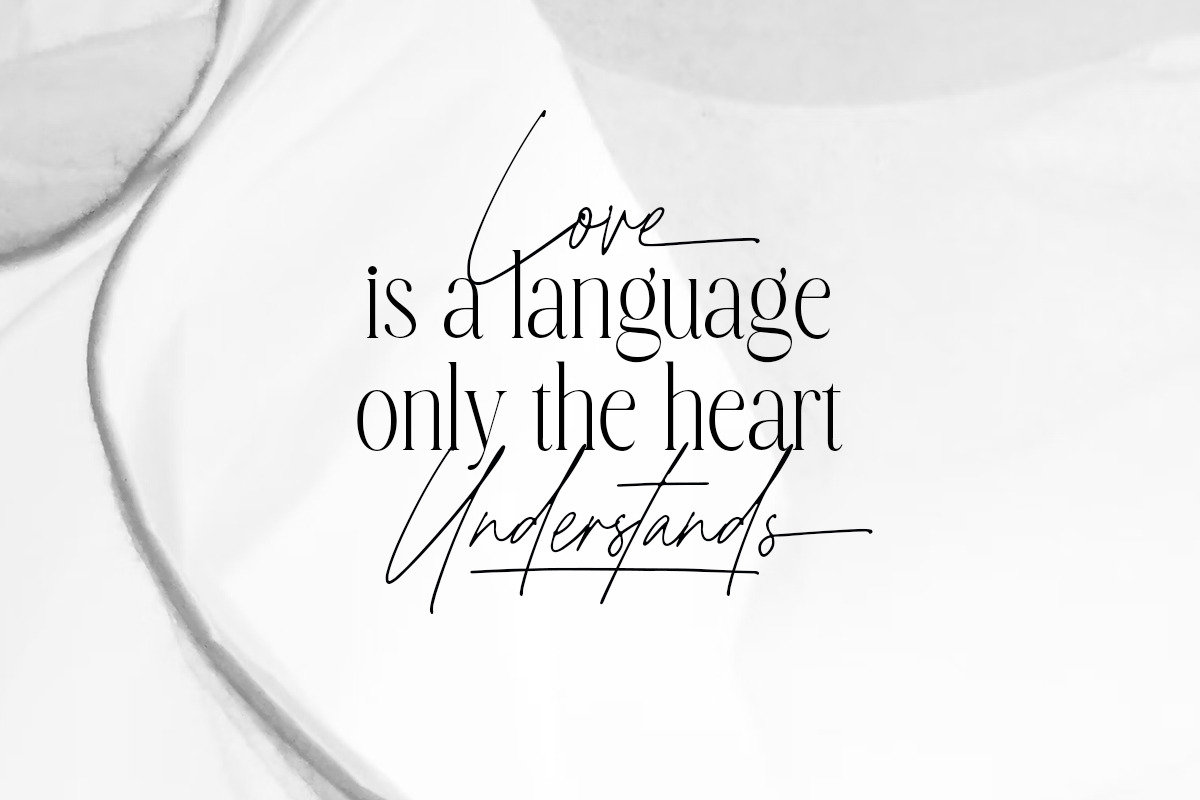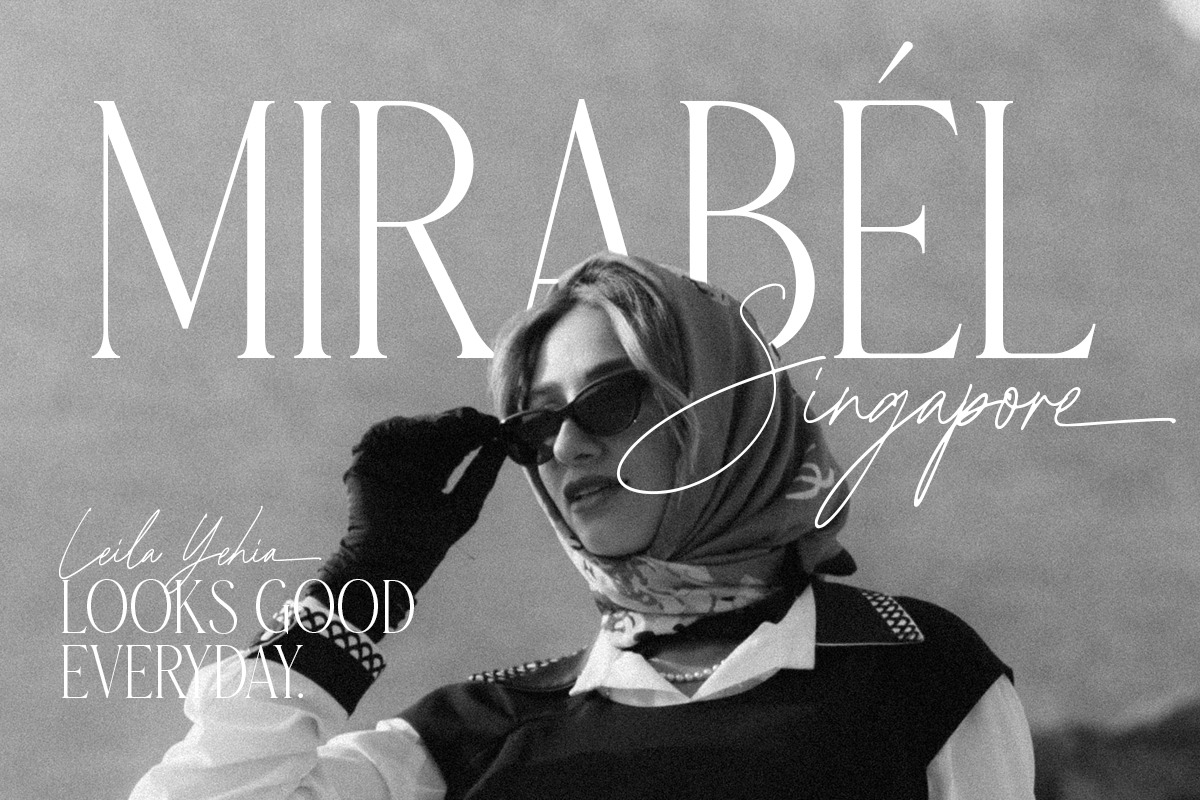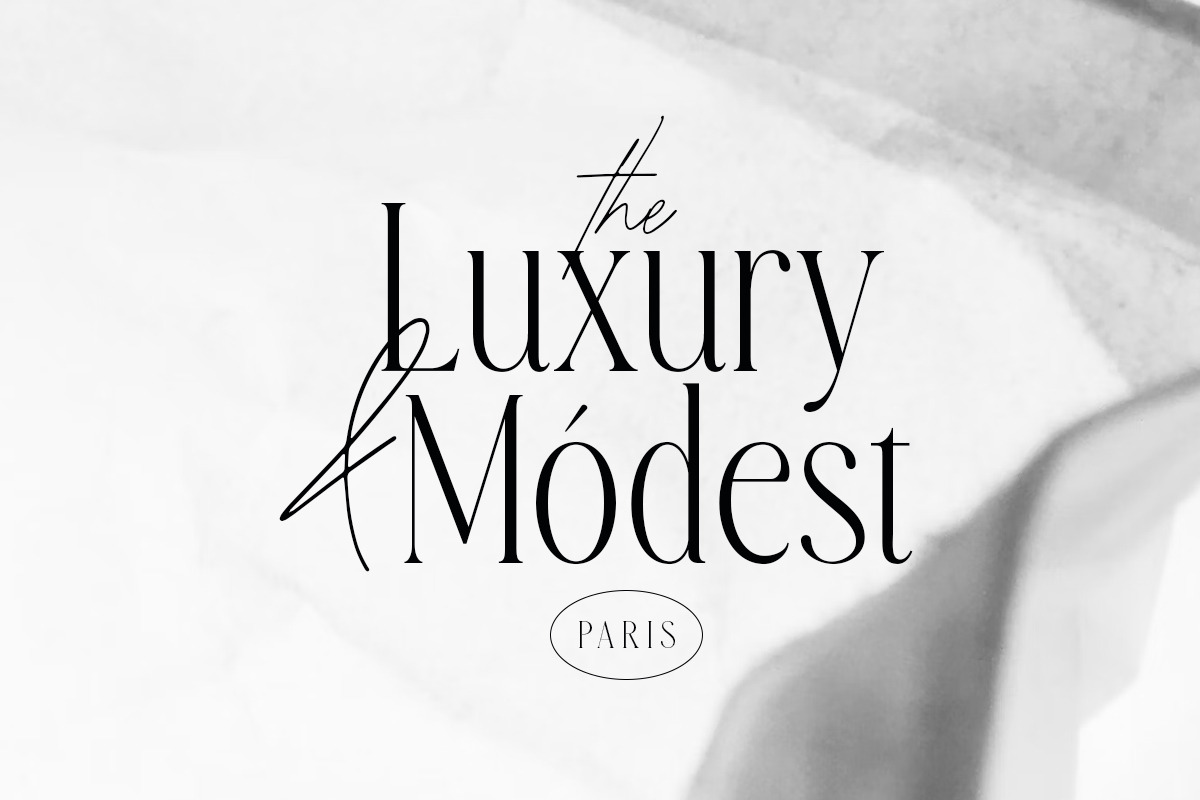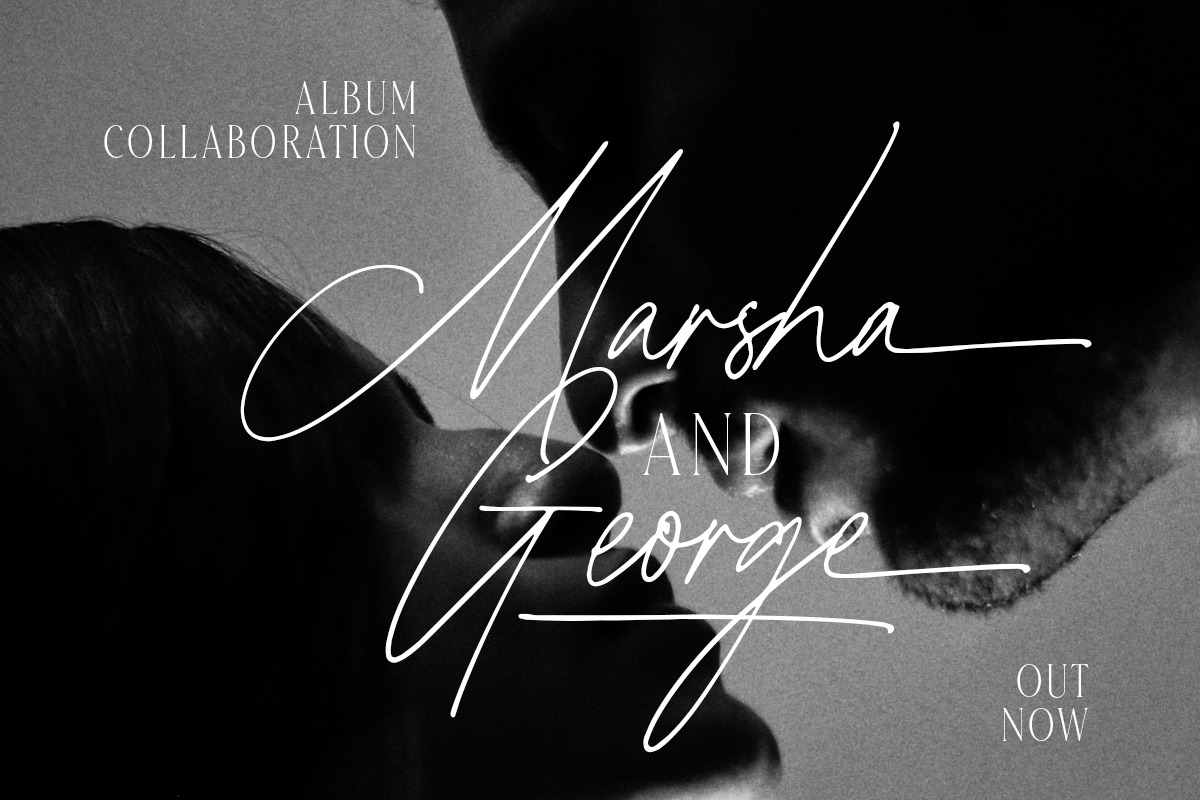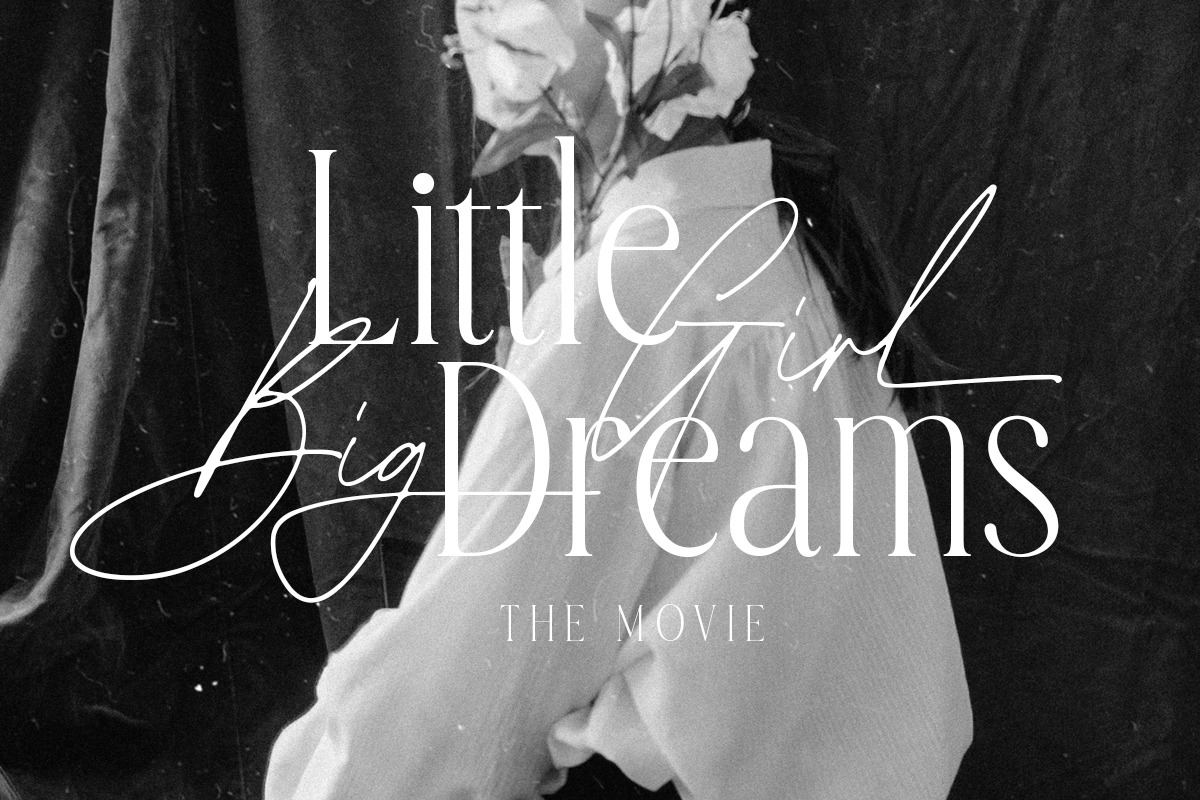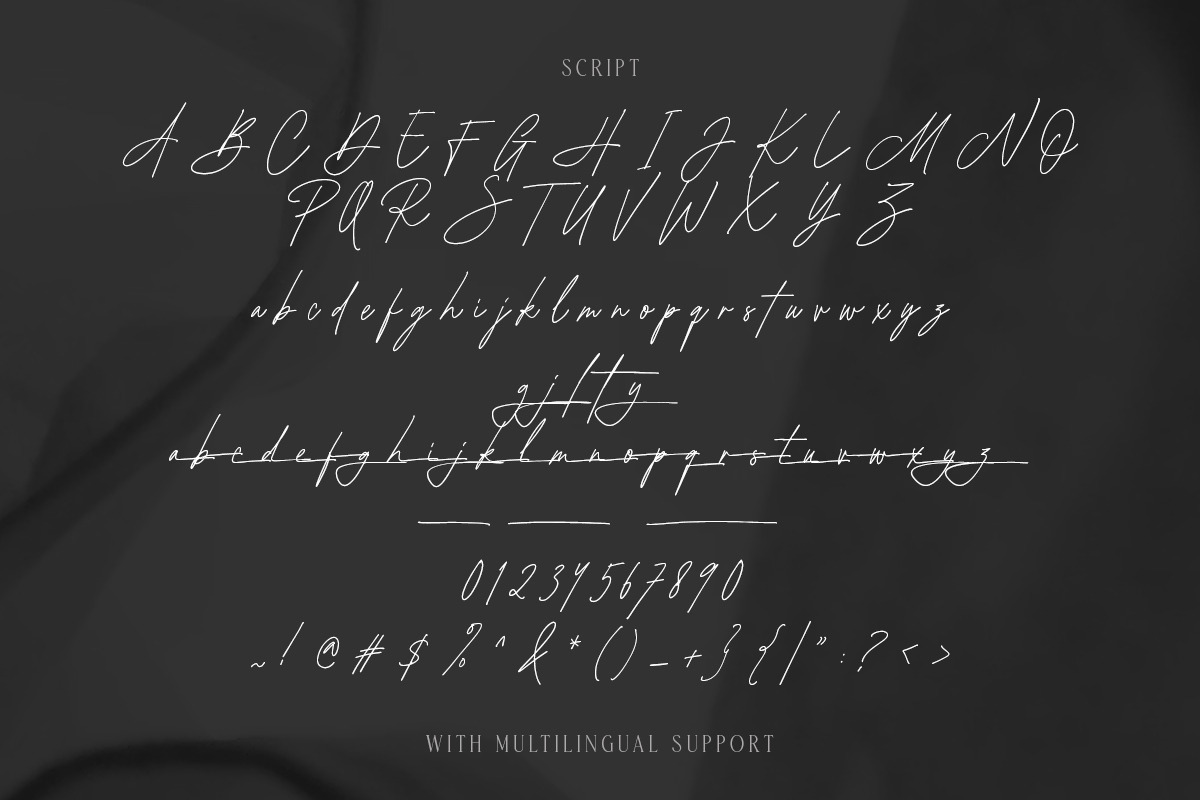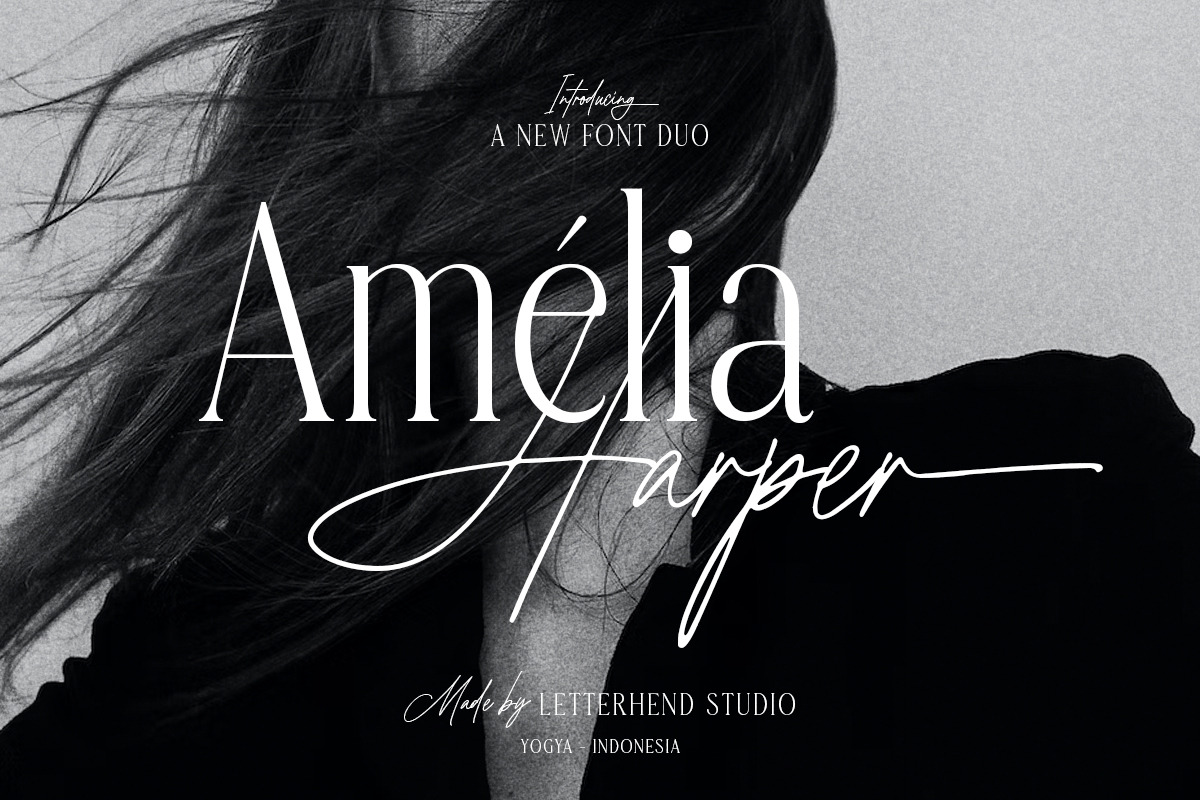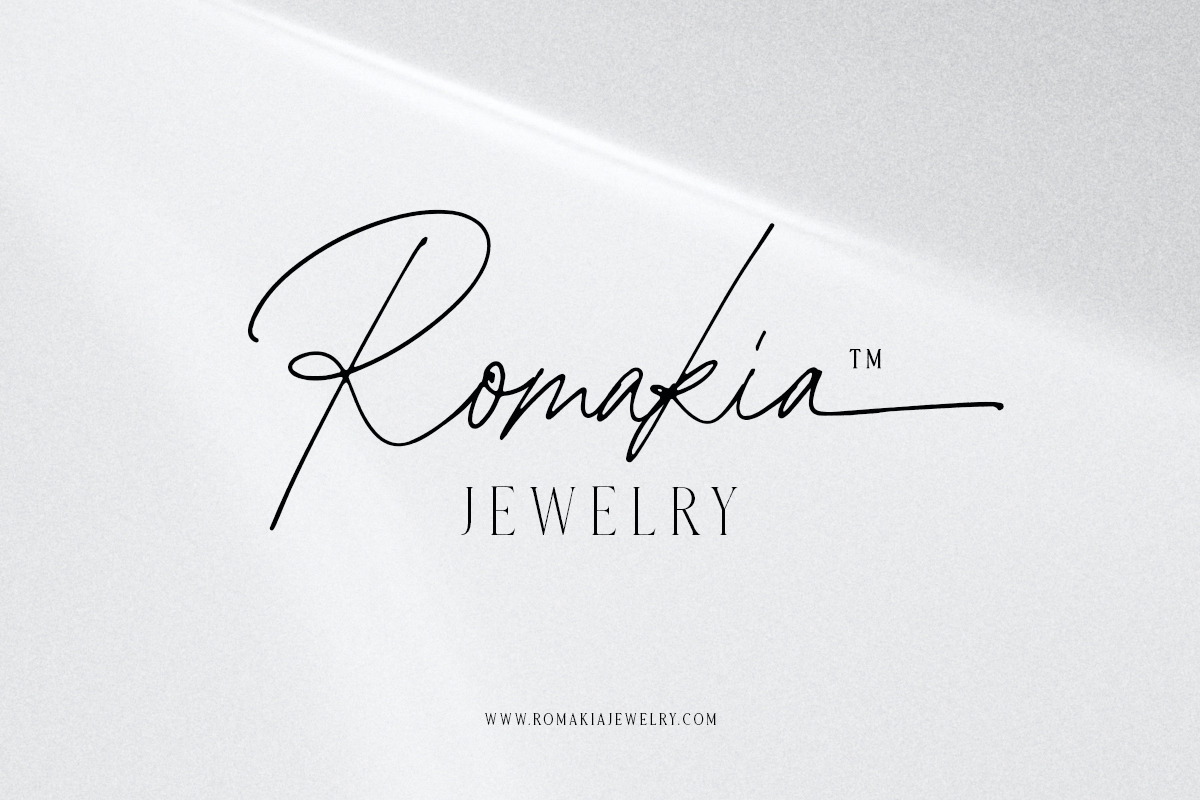
Amelia Harper Font Duo
Amelia Harper , a new font duo where the elegance of a serif font intertwines flawlessly with the beauty of a handwritten script. This font duo is carefully crafted to bring together the classic charm of serifs with the contemporary edge of modern scripts.
Whether you're designing wedding invitations, branding materials, or editorial layouts, Amelia Harper effortlessly elevates your projects with its timeless appeal and stylish versatility.